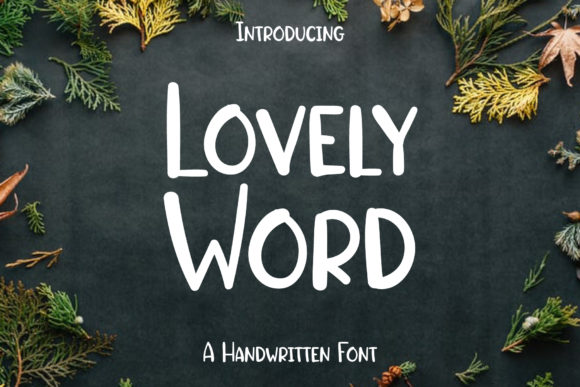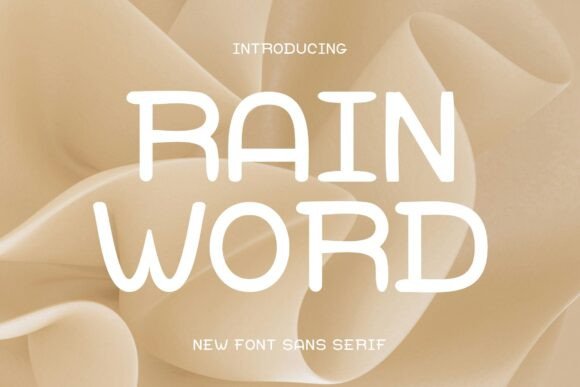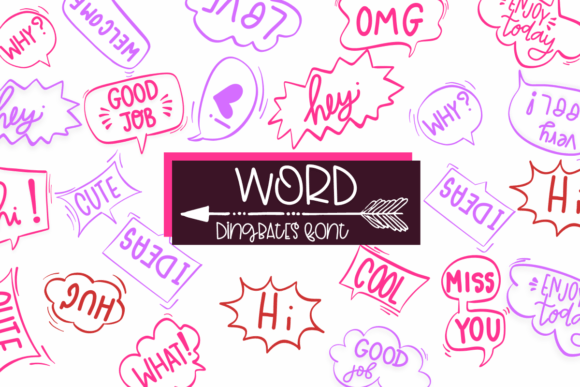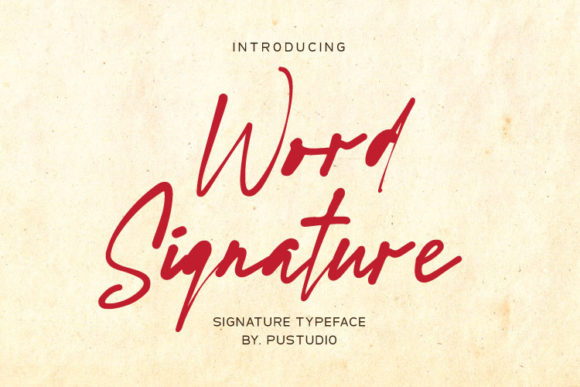
Word fonts
10+ Best Word fonts for creative designers
We all have our comfort zones when it comes to typography. It is so easy to scroll past the same familiar names in the Word dropdown without a second thought. But here is the truth: Microsoft Word is just the stage – the real performance comes from the typefaces you choose to import.
I have spent weeks hunting down the most underrated interesting fonts that pair perfectly with your favorite word processor.
In this roundup, I am sharing a hand-picked collection of creative fonts that you can download and install today to finally break free from the default rut.
Lovely Word Font
Let’s kick things off with Lovely Word, and trust me, the name is not an exaggeration. In a world full of rigid, corporate typefaces, sometimes you just need something that feels human. Lovely Word is exactly that — a simple, natural handwritten font that brings warmth to any project.
I am a firm believer that the best Word fonts are the ones that don’t look like they were made on a computer, and this one fits the bill perfectly. Whether you are designing a wedding invite, a personal blog header, or just want to add a personal touch to a flyer, this typeface has the potential to elevate your creation from flat to fabulous. It is one of those rare interesting fonts that feels both effortless and intentional.
Word Signature Font
Next up is Word Signature, and this one immediately caught my eye. There is something so refreshing about a script font that doesn’t take itself too seriously. The characters have this playful energy, like they are literally dancing across the page. It feels human, imperfect in the best way, and full of personality. This is the kind of typeface that makes people stop scrolling. Slap it on a quote graphic, a wedding invitation, or even a product label, and watch how it instantly grabs attention. It adds that handmade touch that feels so rare in our digital world.
Here is a pro tip: Word Signature works beautifully when you keep everything else minimal. Let it be the star. Pair it with simple layout and neutral colors, and you have a design that looks effortless but intentional. This is proof that you don’t need fancy software to create stunning work – sometimes the best Word fonts are the ones you download and make your own.
Rain Word Font
Next up on our list is a typeface that feels like a breath of fresh air. Rain World is one of those sweet and friendly fonts that immediately puts a smile on your face. It has this natural, almost effortless flow to it that makes it incredibly versatile – you can slap it on almost anything, and it just works. I love experimenting with Word fonts that don’t try so hard to be perfect, and Rain World nails that balance.
It is quirky but readable, unique but approachable. Whether you are crafting a playful social media graphic or a cozy café menu, this font fits right in. Honestly, the only limit here is your imagination, and as a designer, that is the best kind of tool to have.
Word Font
Alright, let’s mix things up a bit because not every font needs to be about letters. Meet Word – a dingbats font with a beautifully sketched theme style. If you have never played around with decorative glyphs and symbols, you are missing out on a whole other layer of design. This one is packed with hand-drawn elements that can take your projects from simple to stunning in seconds.
I am talking wedding invitations, DIY crafts, custom logos, you name it. It is the kind of hidden gem that reminds me why I love digging through Word fonts; you never know what visual treasure you will uncover. Sometimes the best interesting fonts aren’t fonts at all – they are illustrations waiting to happen.
Favio Font
If you have been following along, you know I have a soft spot for typefaces with a story. Favio is exactly that — an elegant, playful duo of serif fonts inspired by ancient printed texts. There is something magical about the way it balances old-world charm with a fresh, minimalist feel. I have been testing it out in some branding mockups, and let me tell you, it gives everything an instant upgrade. The best part?
You can play with the letters to create different effects, making every project feel one-of-a-kind. From wedding invitations to packaging, logos to children’s books, this font does it all. It is proof that the right Word fonts can make even a simple quote look like gallery art.
Constanza Font
I saved one of my favorites for last. Let me introduce you to Constanza – a freshly baked vintage serif that feels like it was pulled straight from a dusty antique shop. What drew me in? Those imperfect ink edges and the slightly sloppy shading that give it that raw, handmade soul. It is inspired by nature and that whole eco-friendly aesthetic we are seeing everywhere right now, and honestly, it pairs like a dream with watercolors or stylized graphics.
nd that is a wrap! We have covered everything from elegant serifs to playful dingbats, proving that the right typeface can completely transform a project. Whether you are designing wedding invites, branding a business, or just sprucing up a personal flyer, these fonts are ready to step up and do the work. My advice?